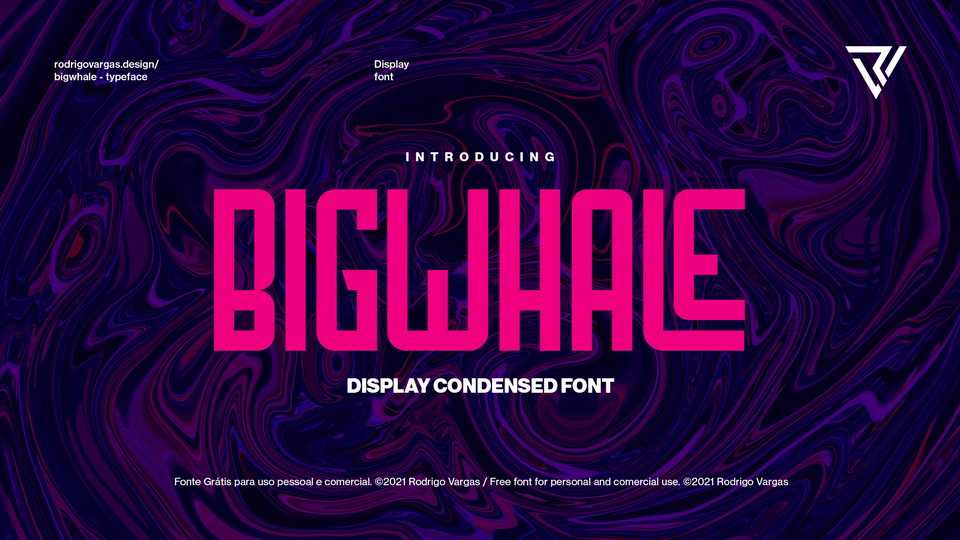
Download Bigwhale font, a condensed display typeface. Bigwhale is perfect for use in titles with a set of numbers, basic symbols and punctuation, for the letter W has an alternative character.
Designer: Rodrigo Vargas